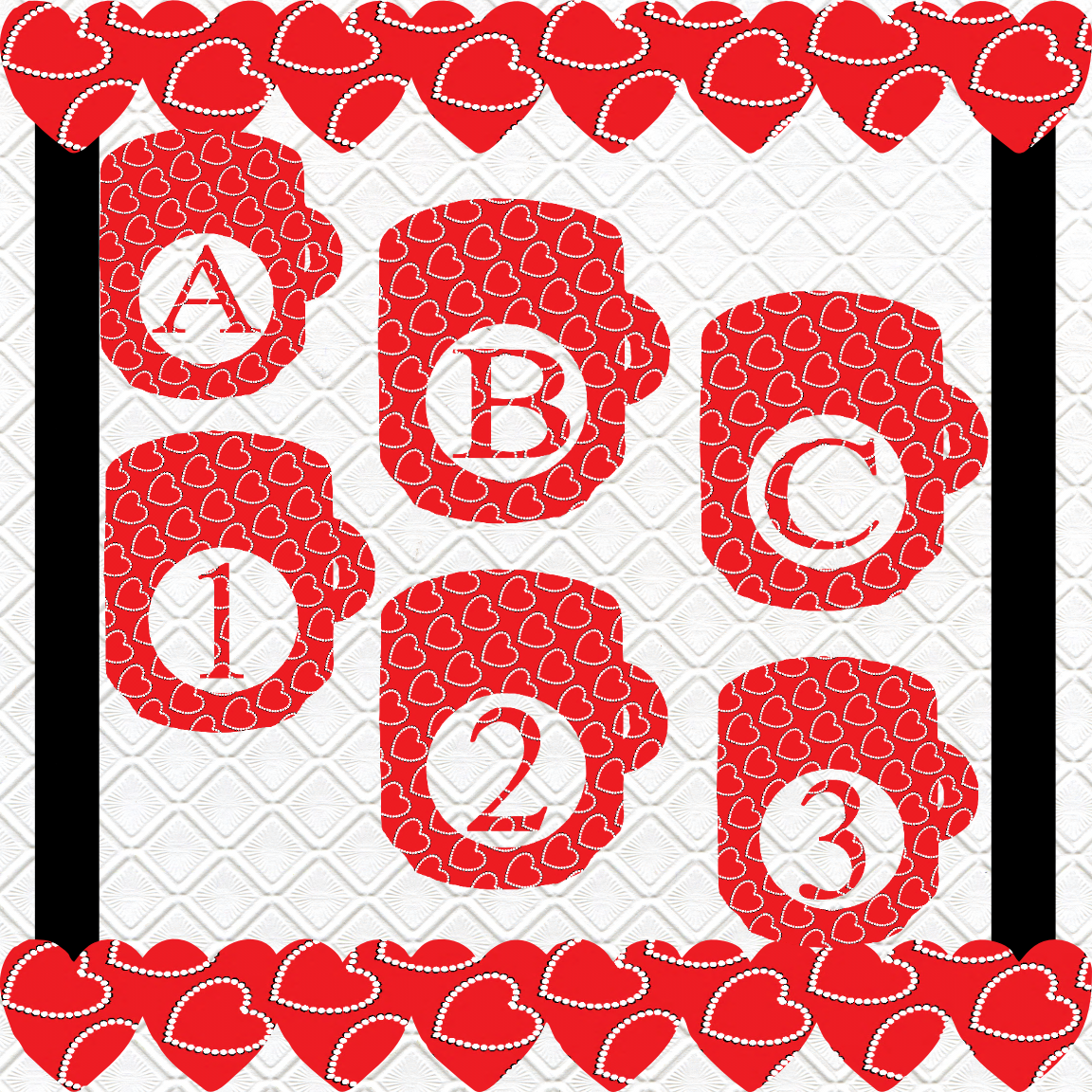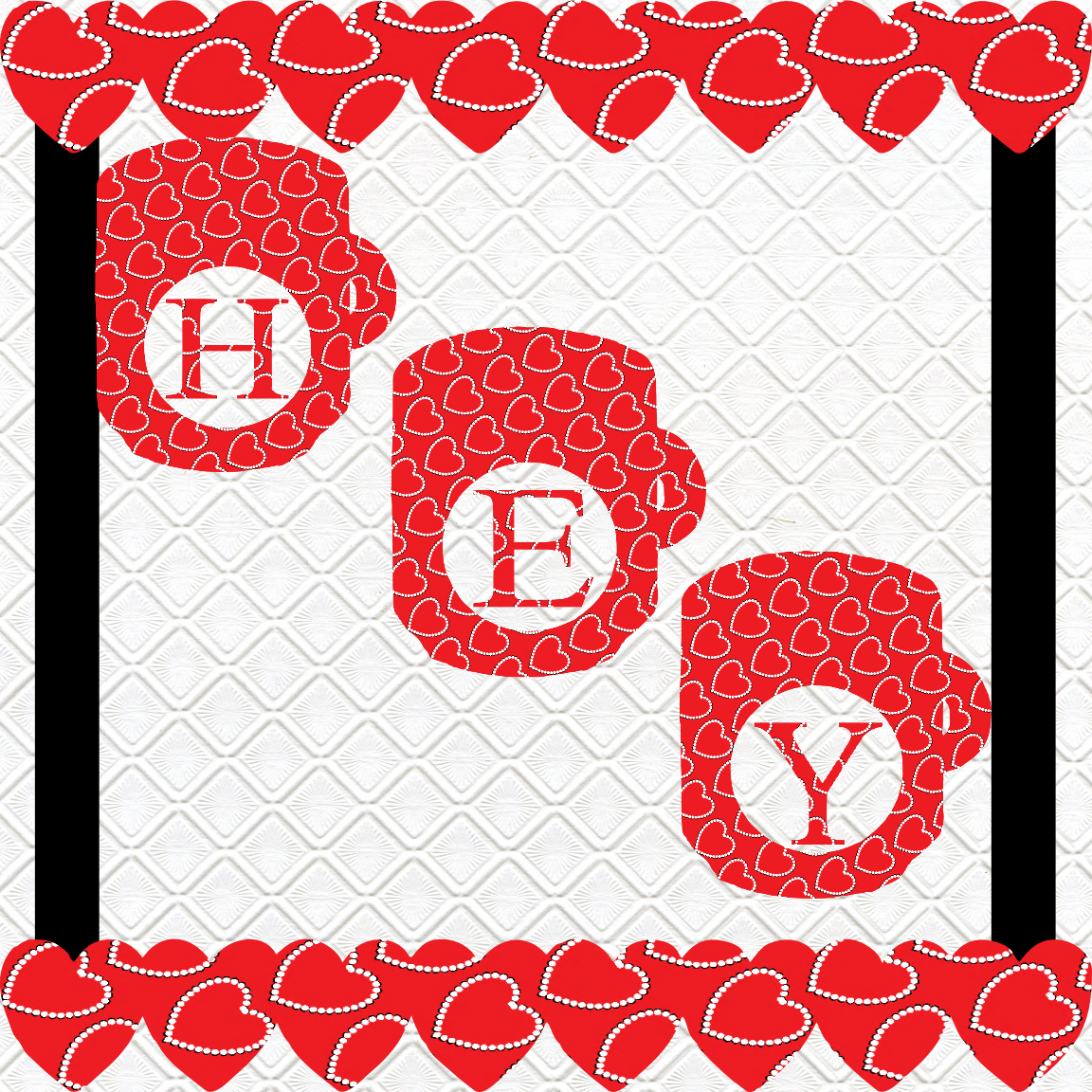
ABC and Numbers 39a-Digital ClipArt-Fonts-Art Clip-Hearts-Gift Tag-Valentine's D
ABC and Numbers 39a-Digital ClipArt-Fonts-Art Clip-Hearts-Gift Tag-Valentine's Day-Notebook-Holiday-Scrapbook-Banner-Background-Gift Card. The files you receive are in formats with transparent backgrounds. Clipart is great for creating invitations, birth announcements, baby showers, business cards, web designs, greeting cards, party printables, tags and so much more!